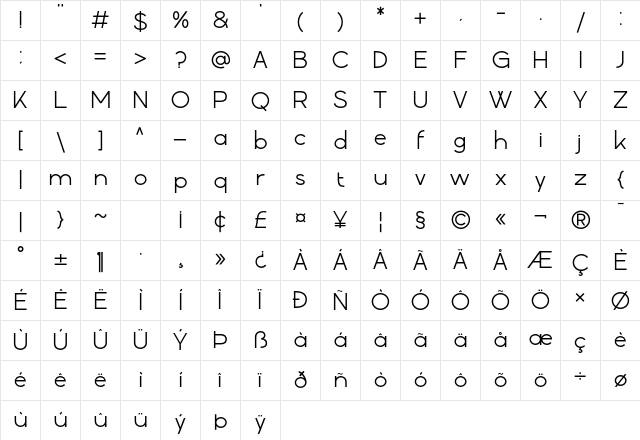
Gatte Modern Medium Regular
Foundry: Fitrah Type
Designer: Moch. Fitrah Hidayat
Design Context for Gatte Modern Medium
Gatte Modern Medium is a composed and adaptable typeface that performs quietly and consistently across a wide range of design contexts.